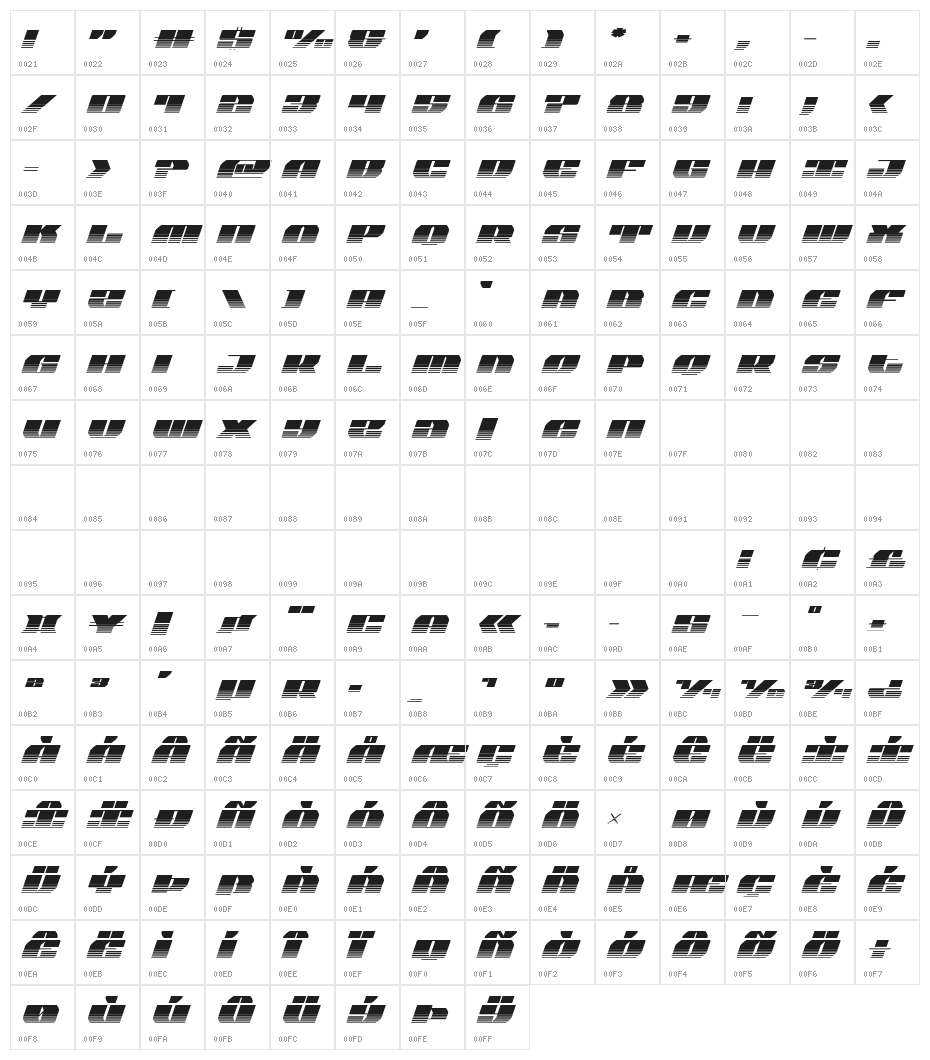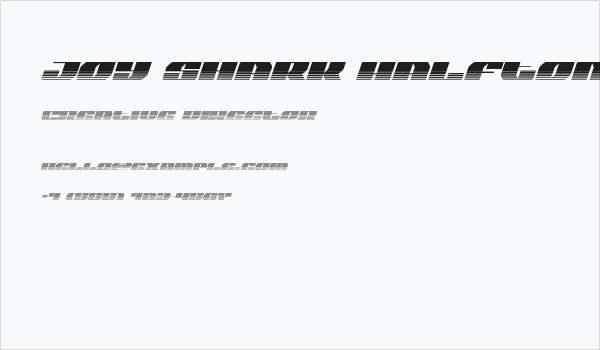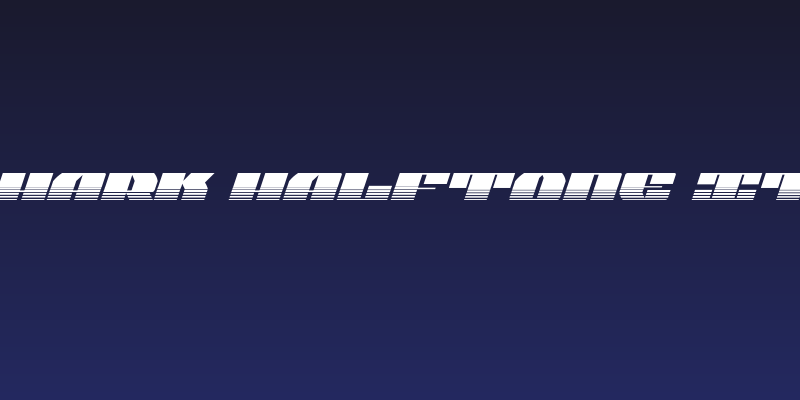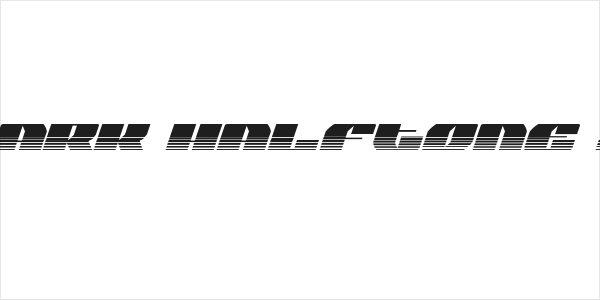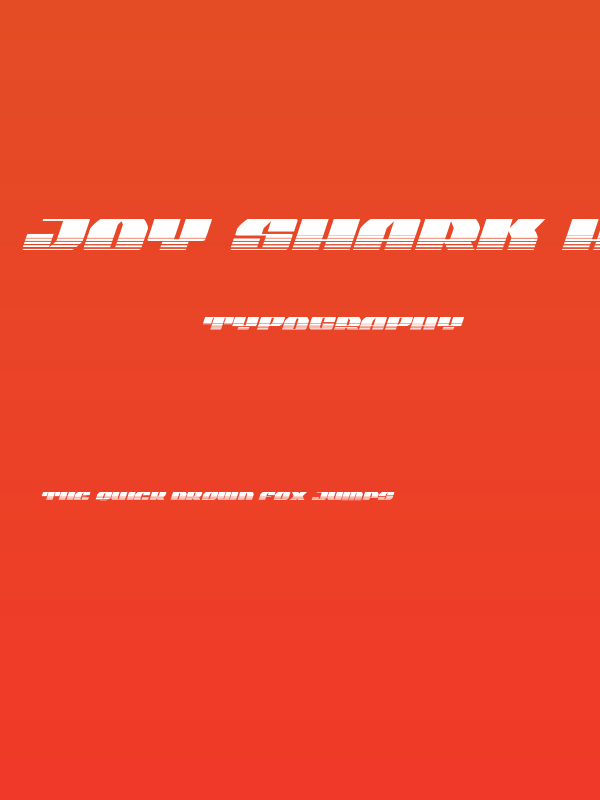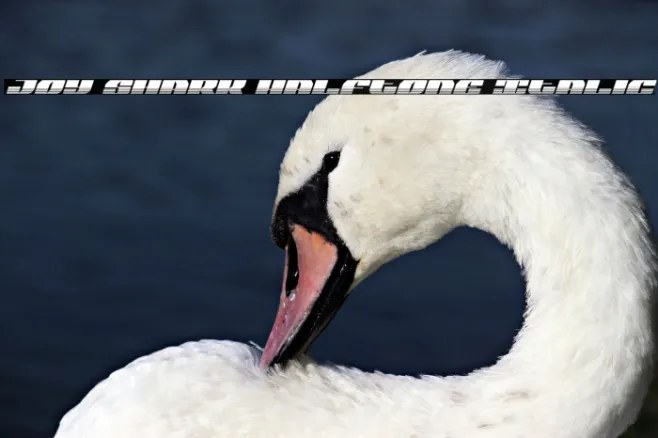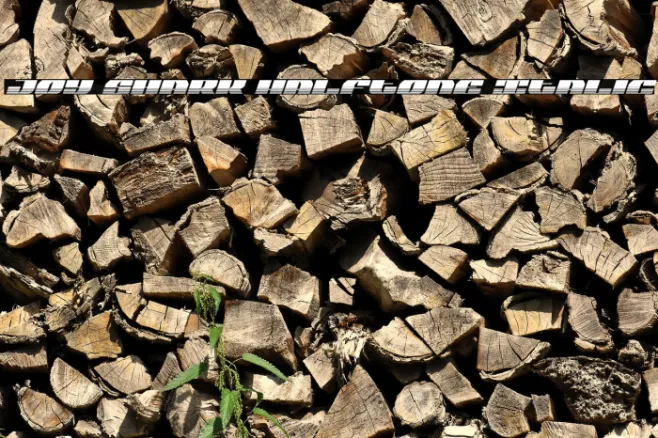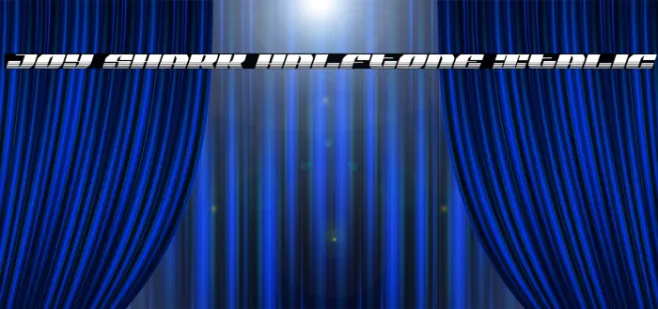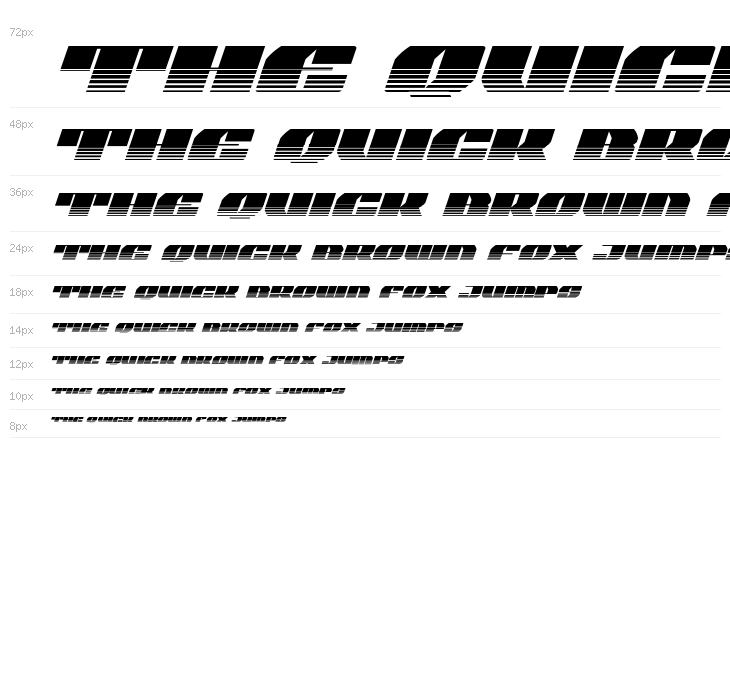
Joy Shark Halftone Italic Font
Joy Shark Halftone Italic Description
This font features a bold, italicized style with a unique halftone effect that gives it a dynamic and modern appearance. The characters are composed of horizontal lines that create a sense of movement and energy, making it stand out in any design. The uppercase and lowercase letters maintain a consistent style, with the lines varying in thickness to enhance the halftone effect. The numerals and special characters are designed to match the overall aesthetic, ensuring a cohesive look across all text elements. This font is ideal for projects that require a bold and eye-catching typeface, such as posters, logos, and headlines.
| Proposed Projects | Ideal for posters, logos, headlines, and any design requiring a bold, modern typeface. |